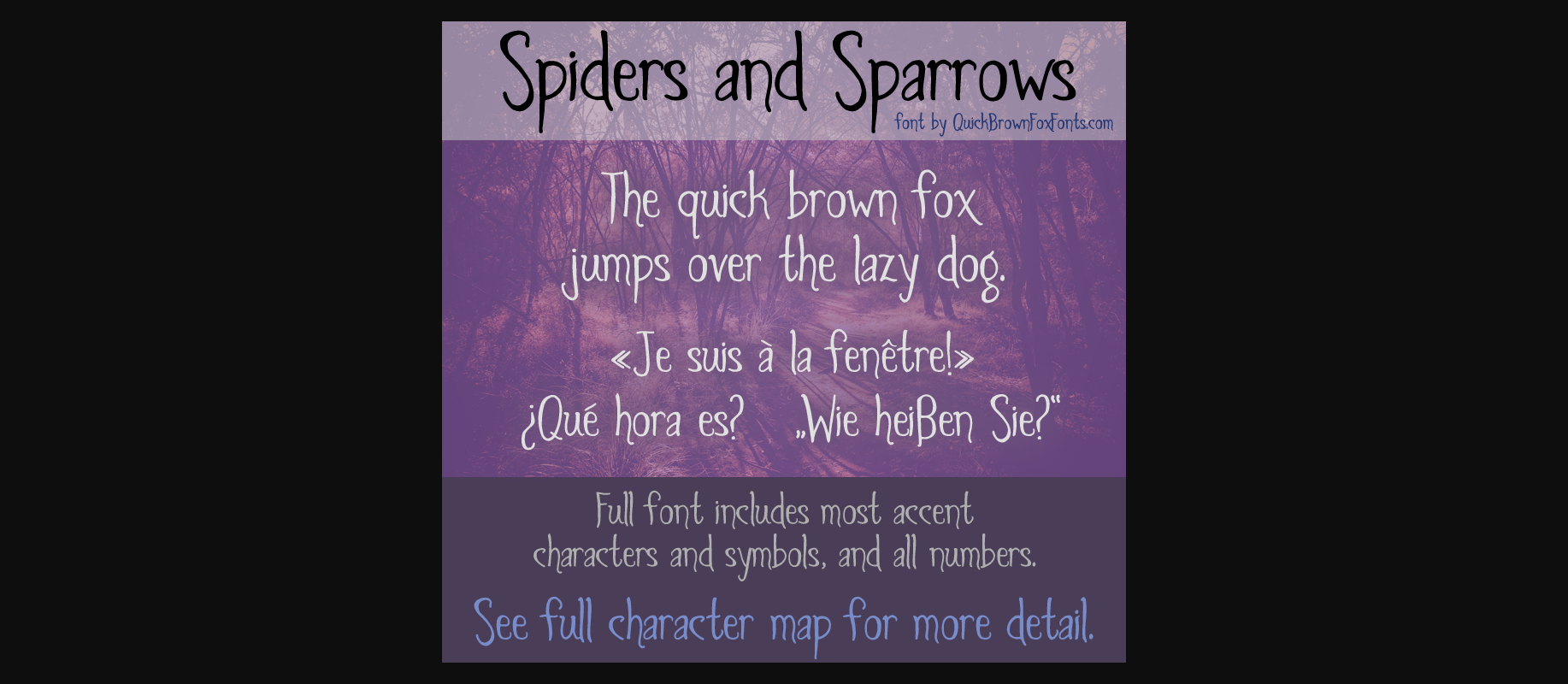
Spiders and Sparrows Font
Spiders and Sparrows is a playful, mischievous, slightly gothic and somewhat creepy font. It looks good in title case, all caps, or all lowercase. Smaller sizes look creepier.